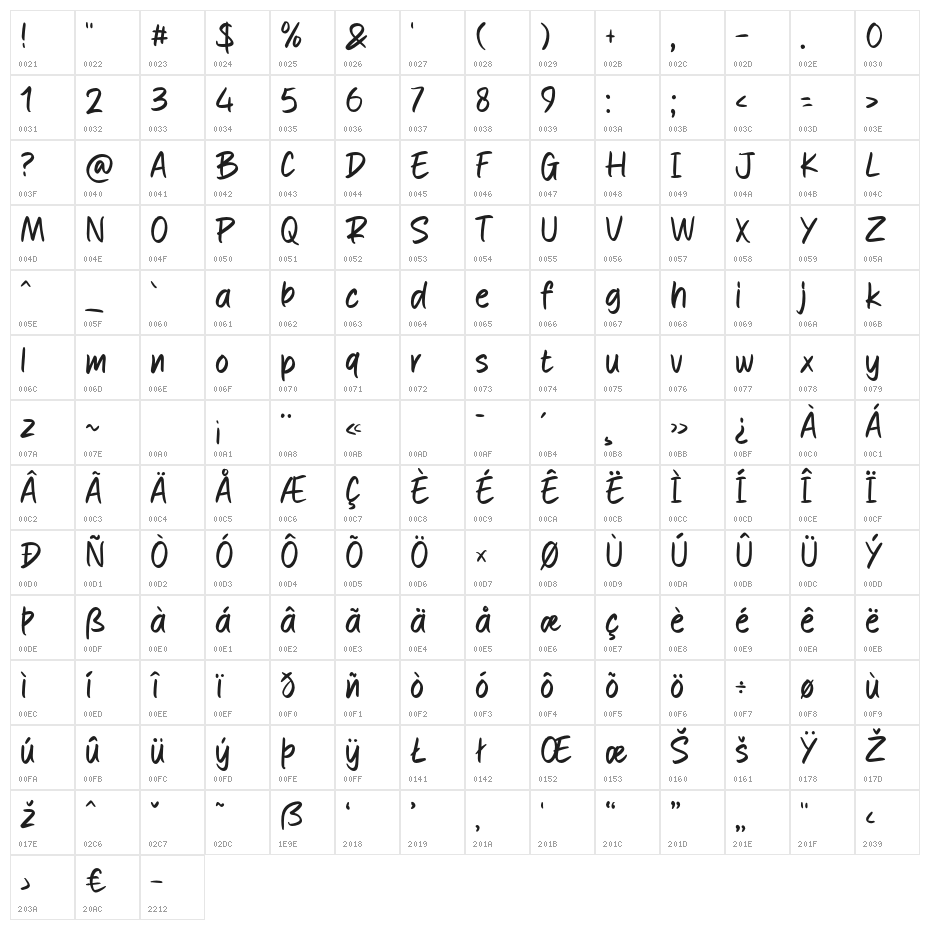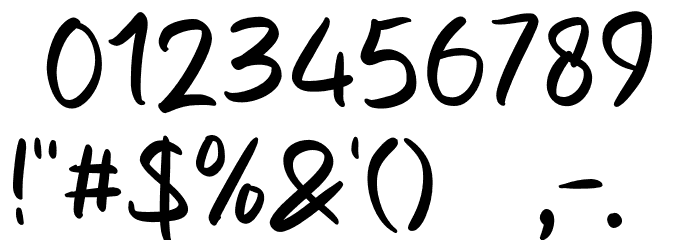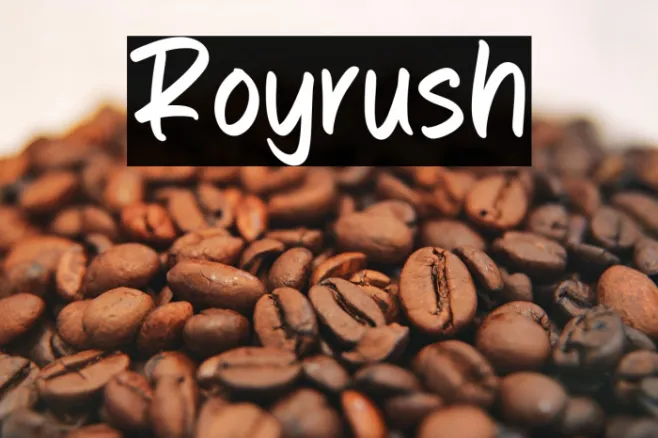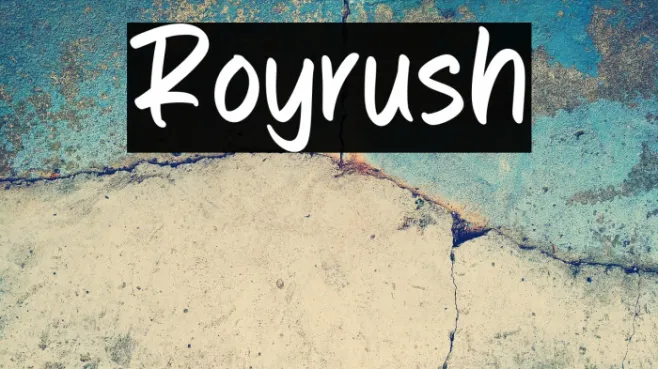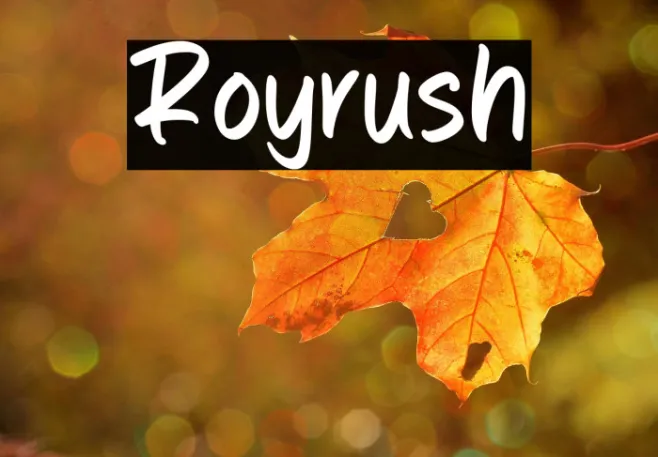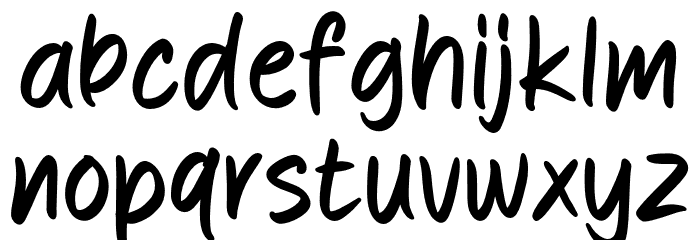
Royrush Font
Royrush Description
This font exudes a playful and casual handwritten style, characterized by its smooth, flowing strokes and slightly irregular shapes that mimic natural handwriting. The letters are bold and rounded, providing a friendly and approachable appearance. The uppercase and lowercase letters maintain a consistent style, with the lowercase being slightly more compact. Numbers and special characters are designed to match the overall aesthetic, ensuring a cohesive look across different text elements. This font is versatile, suitable for projects that require a personal touch or a relaxed vibe.
| Use Case | Headlines, Informal text, Personal projects |
| Proposed Projects | Ideal for greeting cards, personal blogs, children's books, and informal branding. |